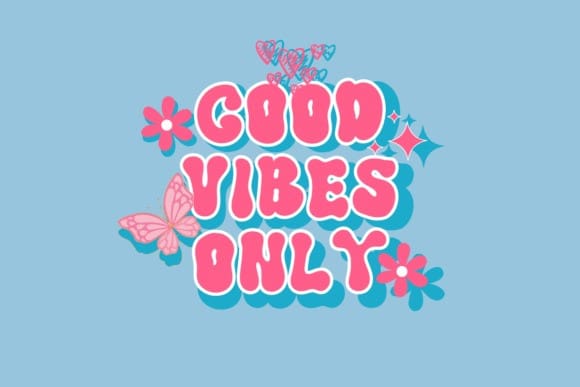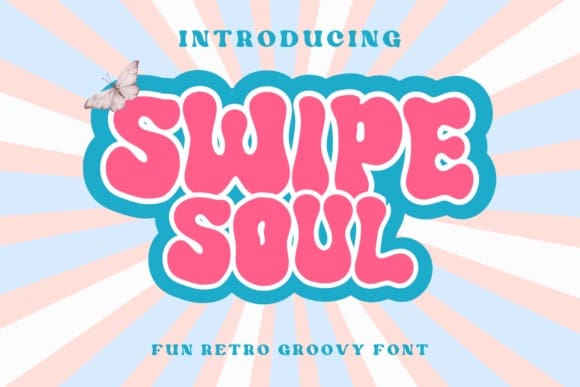
Swipe Soul Font
Swipe Soul Font is a fun and retro font, it’s perfect for designs that need a playful, cheery accent. SwipeSoul is suitable for book covers, posters, packaging, merchandise, logotypes, and many more!